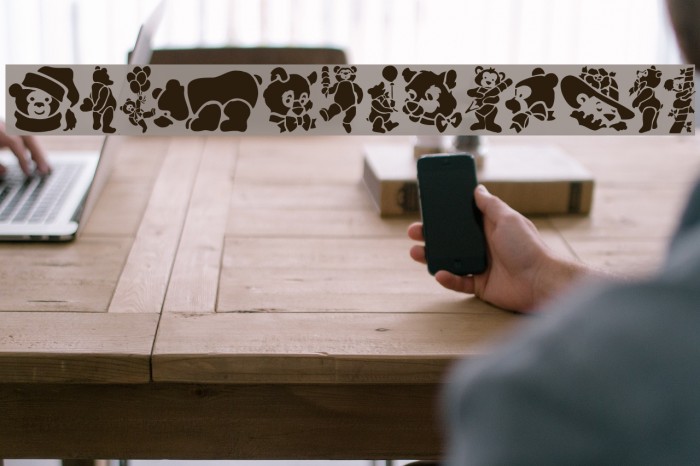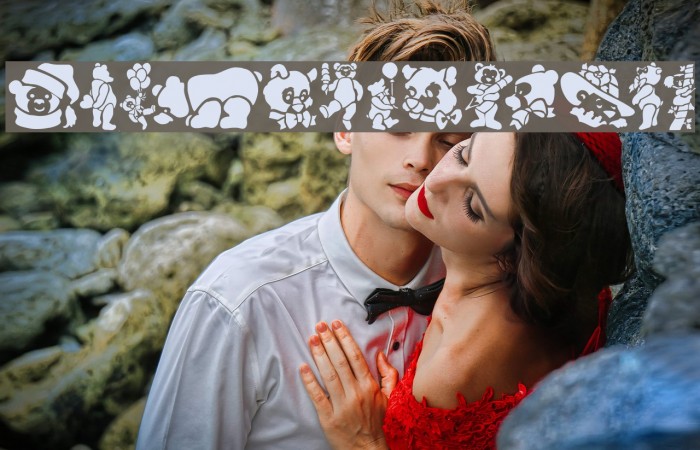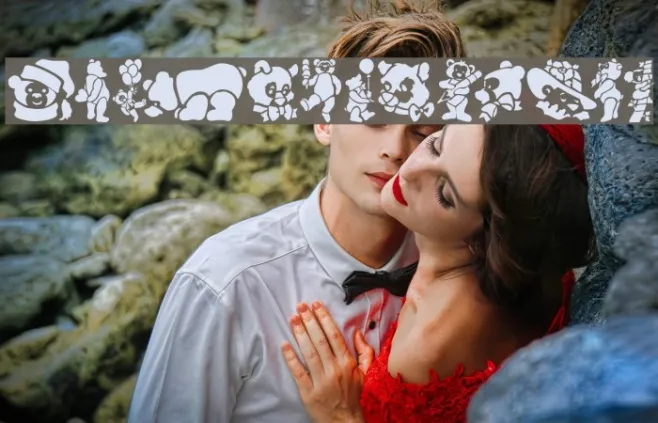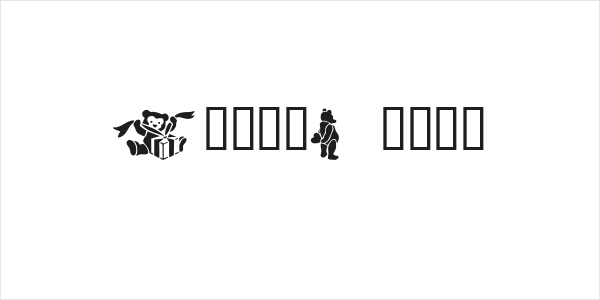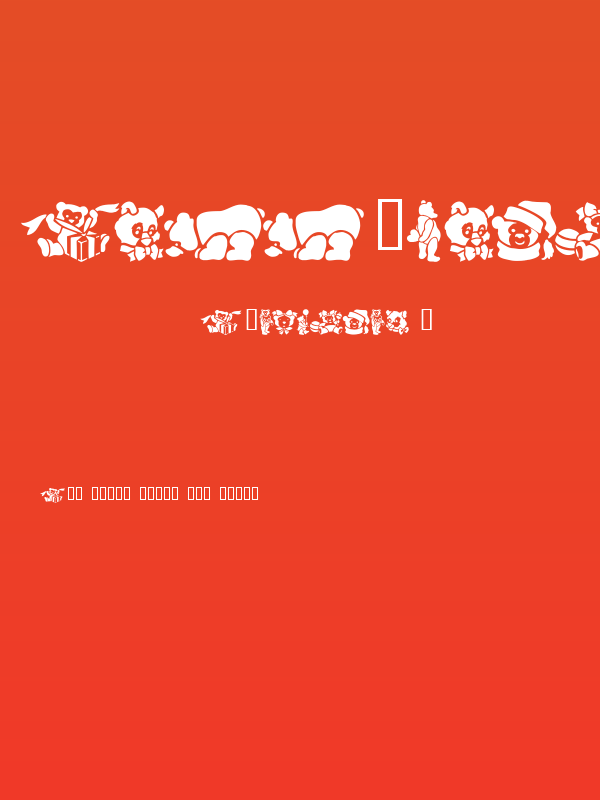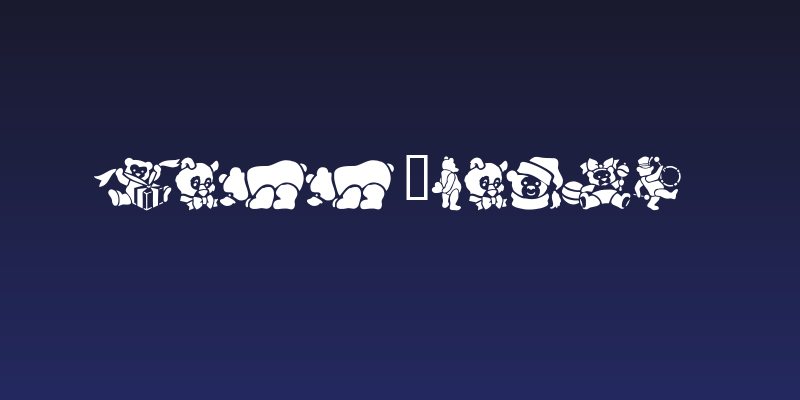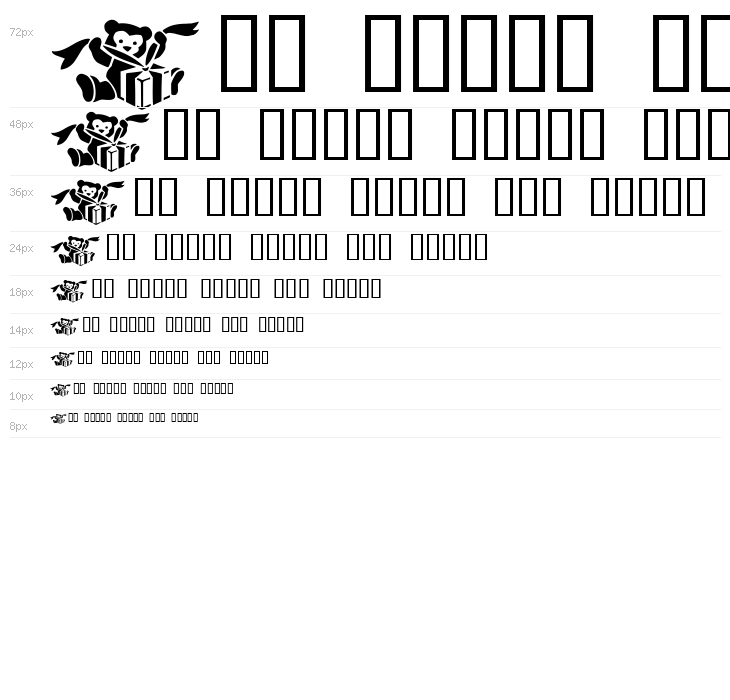
TeddyBears Font
TeddyBears Description
This is a playful and whimsical decorative font featuring a series of charming teddy bear illustrations. Each character is represented by a unique teddy bear design, showcasing various poses and activities. The font is highly decorative, making it ideal for projects that require a fun and lighthearted touch. The teddy bears are detailed and expressive, adding a sense of joy and creativity to any design. This font is perfect for children's projects, playful branding, or any design that aims to convey warmth and friendliness.
Use CaseLogos, Decorative text, Children's projects
Proposed ProjectsIdeal for children's books, playful branding, greeting cards, and decorative posters.